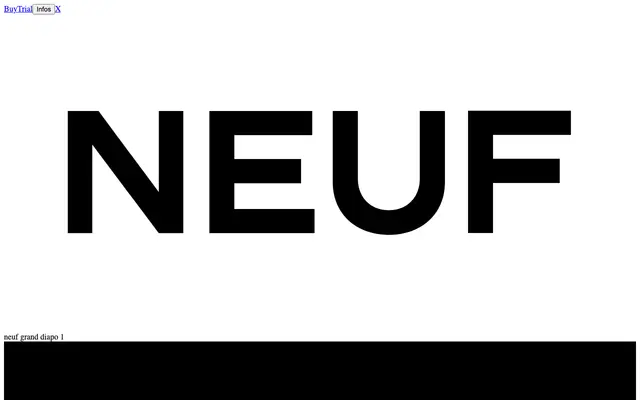
A revival of 'Gravure Taille Douce', a late-1920s French grotesque from the Fonderie Typographique Française catalogue, with strong personality drawn from its original idiosyncrasies.
Based on a bold sans-serif from the FTF's 'Fantaisies Modernes avec bas de casse' category, this typeface closely follows the weight, proportions and curve dynamics of the original metal type while making selective stylistic revisions. The result sits within the French Antiques tradition yet carries a distinct national interpretation of the grotesque genre, particularly evident in the numerals, symbols and punctuation. Five weights from Light to Rounded give the family enough range for both text and display use.
A revival of a late-1920s French grotesque from the Fonderie Typographique Française catalogue, classified in the French Antiques tradition with distinctive national character in its letterforms and numerals.